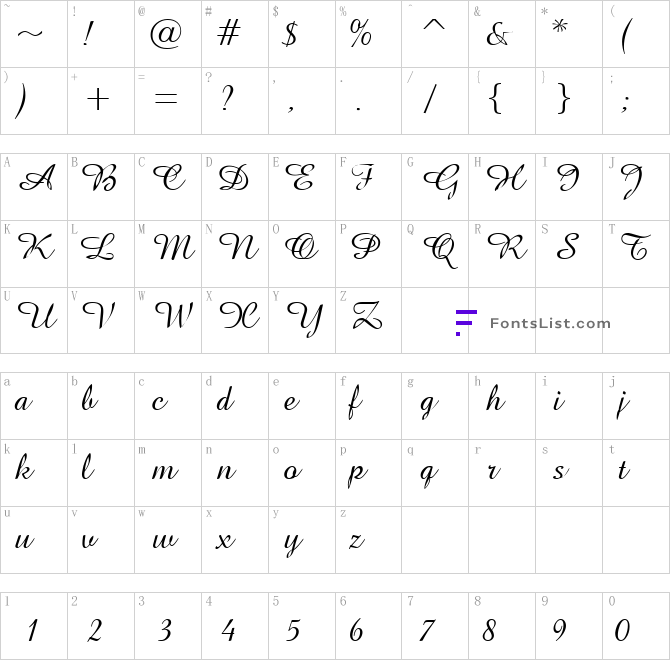
- Font Name:Amaze
Amaze-Normal-copy-2-.ttf is a very beautiful artistic font, Amaze-Normal-copy-2-.ttf is widely used in the design and printing of various books and pictures,Amaze-Normal-copy-2-.ttf has a strong visual impact,Amaze-Normal-copy-2-.ttf is a commonly used font in newspapers, magazines and books, and is used in posters, e-commerce Poster design, store design, logo design, font design and other fields.Amaze-Normal-copy-2-.